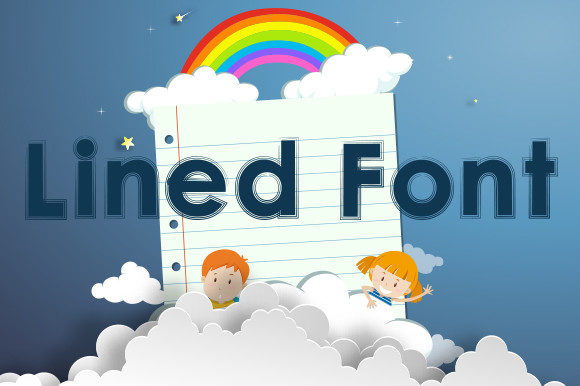
**Introducing Lined Font: The Bold and Striking Display Font That Commands Attention**
In the realm of digital typography, where countless fonts vie for your attention, one rises above the rest with its undeniable boldness and captivating presence: Lined Font. This extraordinary display font, crafted by the renowned foundry Bellart, is a masterstroke of design that will transform your visual creations into eye-catching masterpieces.
Lined Font's distinctive thick lines and clean, geometric letterforms create an unforgettable visual impact. It is a symphony of strength and elegance, perfectly suited for capturing the spotlight in logos, labels, headings, and any other design element that demands attention.
Its versatility knows no bounds. Whether you seek to create a bold and memorable logo for your brand, design eye-catching labels that draw customers' gazes, or craft powerful headlines that leave a lasting impression, Lined Font is your ultimate weapon.
Unleash your creativity and let Lined Font ignite your designs. Its versatility extends to t-shirts, letterheads, signage, labels, news, posters, badges, and countless other applications. With Lined Font, you possess the power to transform ordinary designs into extraordinary works of art.
Dive into the world of Lined Font and discover a font that will redefine your digital presence. Its bold lines and striking letterforms will captivate your audience, leaving a lasting impression that resonates long after they encounter your creations.
Embrace the power of Lined Font today, and let its bold and beautiful presence elevate your designs to new heights.